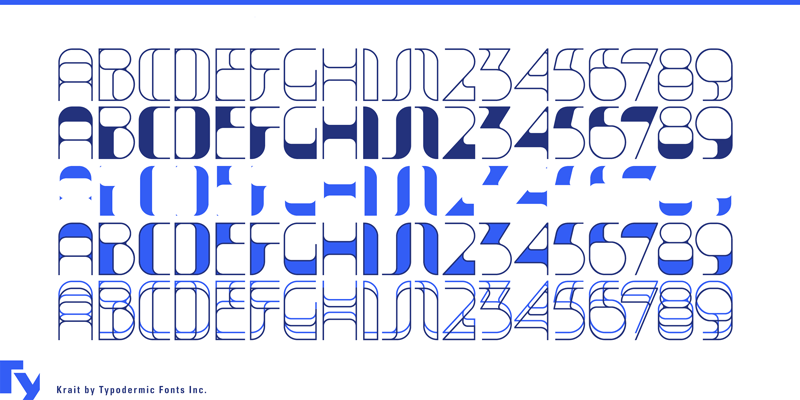
Font name: | Krait |
Krait is a layered geometric typeface designed for architectural display. It avoids conventional art-deco thick-thin cliches in order to better harmonize with non-traditional environments. The desktop license for all styles of Krait is free. If you'd like to embed any of these fonts in an app, ebook, on the web or anything that's not covered by the desktop license agreement, visit the link below. You'll find distributors who offer different types of licenses or you can contact me for help. Please read the FAQ on the front page of Typodermic Fonts and don't be afraid to ask questions if you're not sure. typodermicfonts.com/krait |